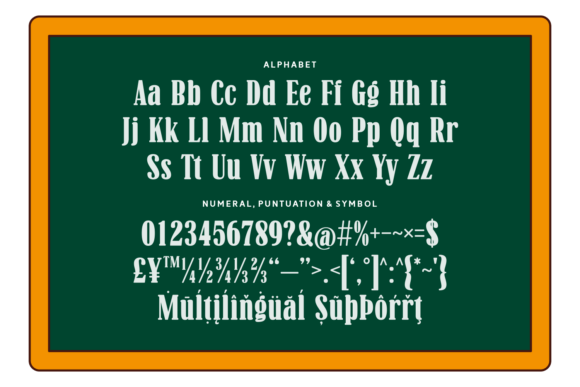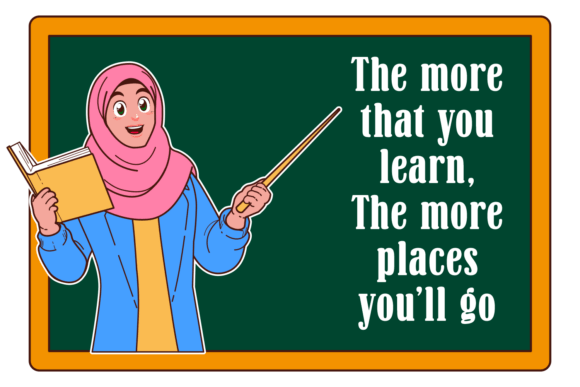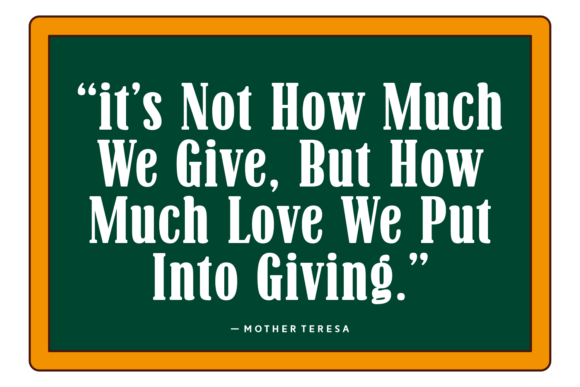
Discover the Perfect Blend of Tradition and Impact
Do you remember the rush of excitement when you stumbled upon that one font that instantly elevates your design? For many of us, it’s a moment that sparks creativity and inspires new projects. I still recall the thrill of discovering Change Teacher Font, a striking classic serif font that exudes bold, authoritative presence.
Change Teacher Font is a versatile font designed to make a statement, whether it’s in headlines, signage, vintage posters, or school-themed designs. Its unique blend of tradition and impact makes it a valuable addition to any designer’s toolkit. With its classic look and feel, Change Teacher Font is perfect for projects that require a touch of elegance and sophistication.